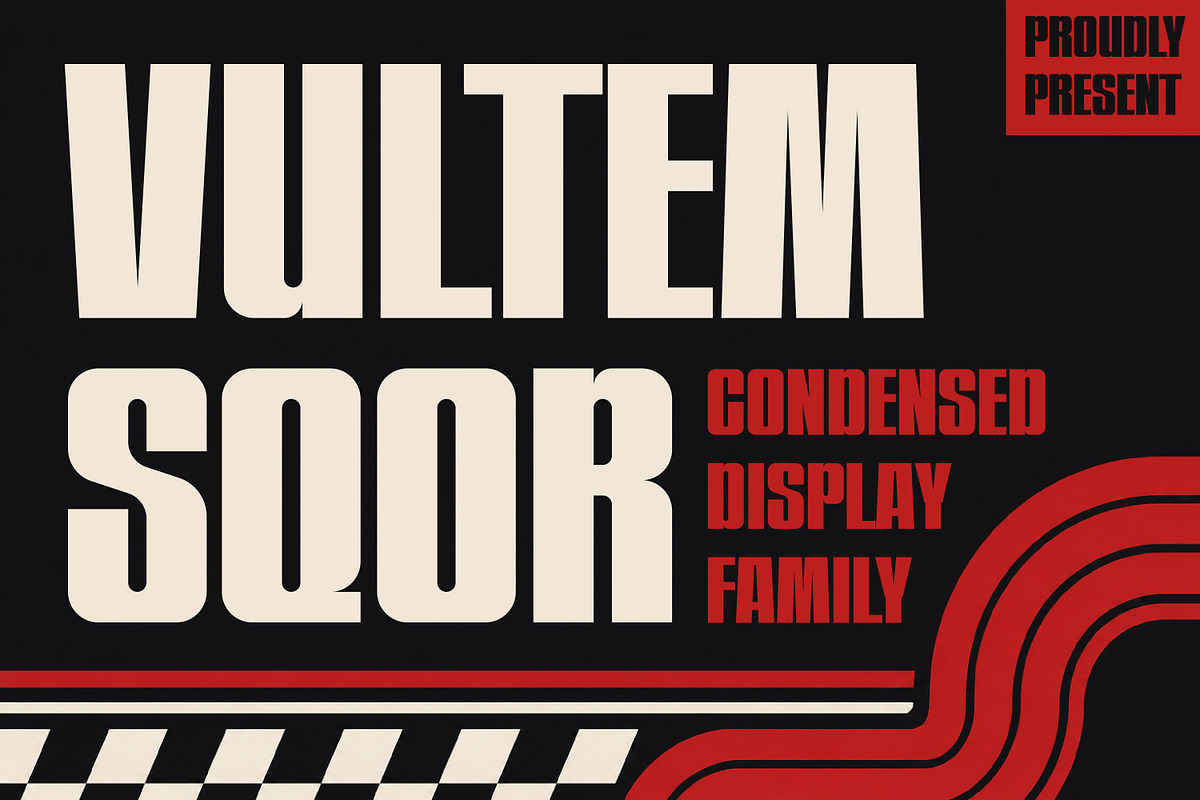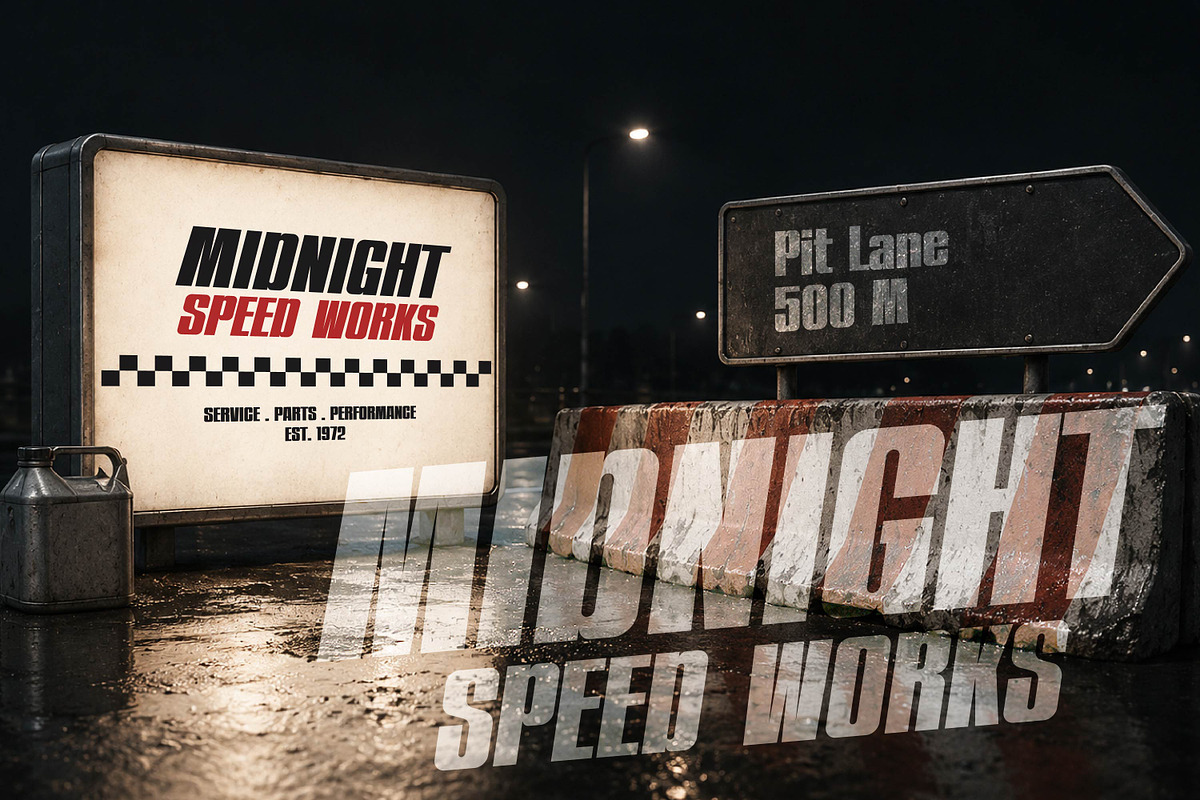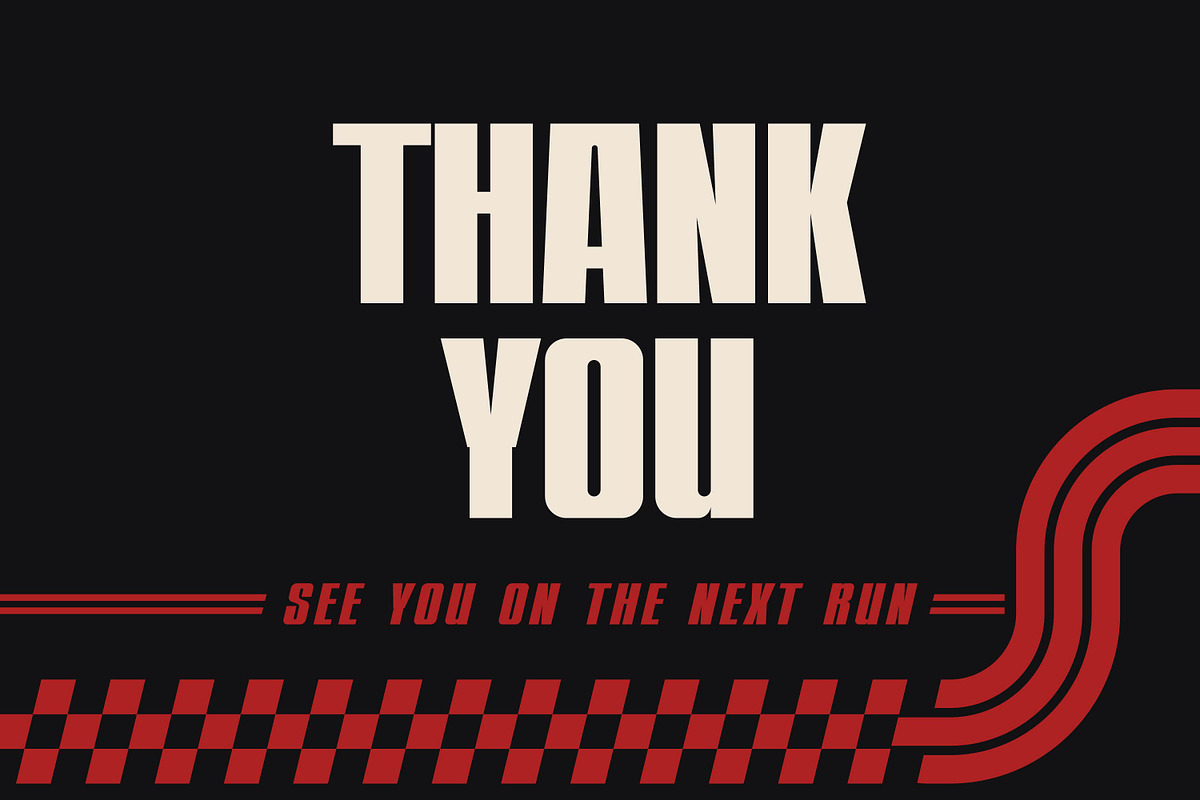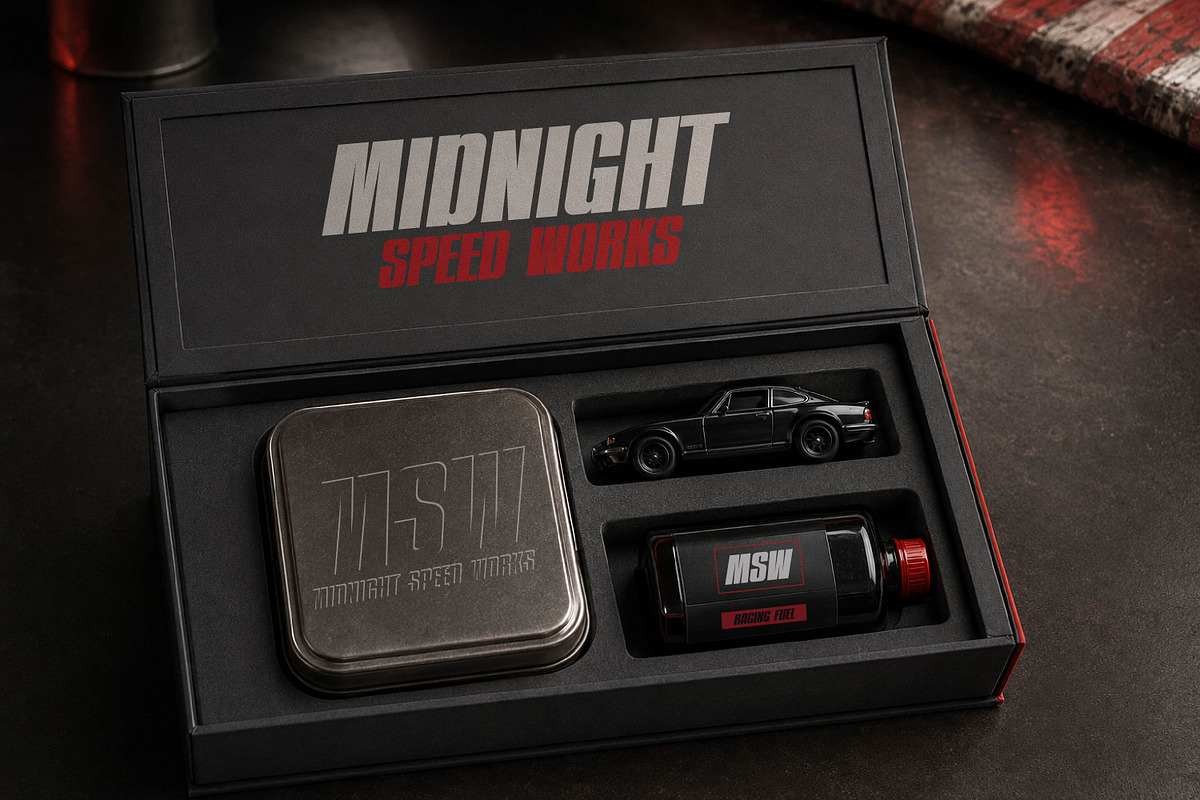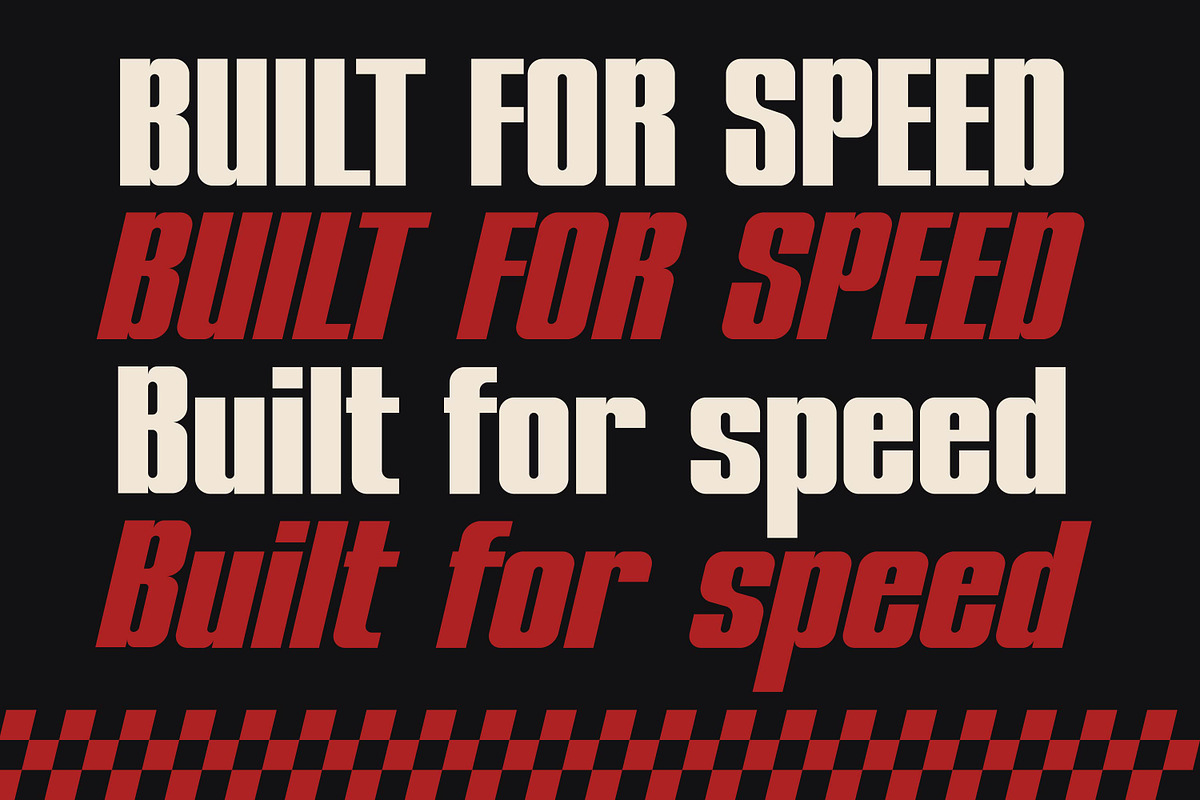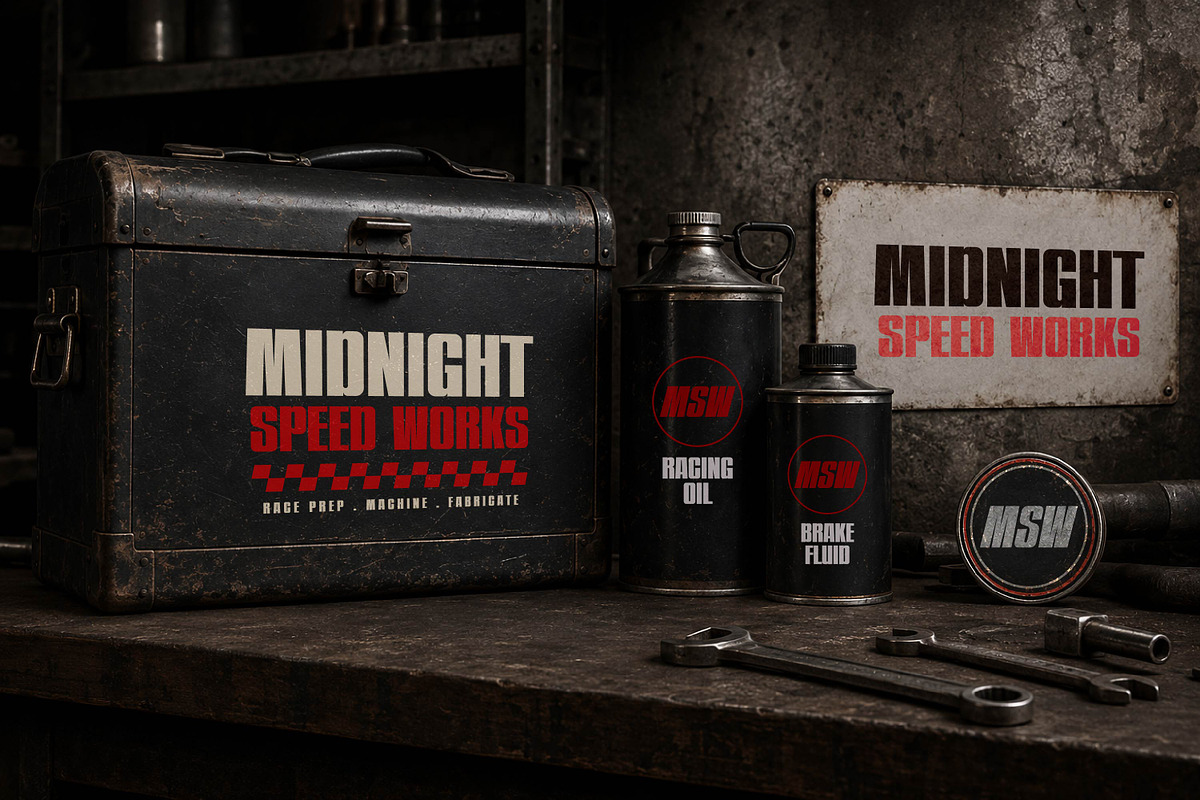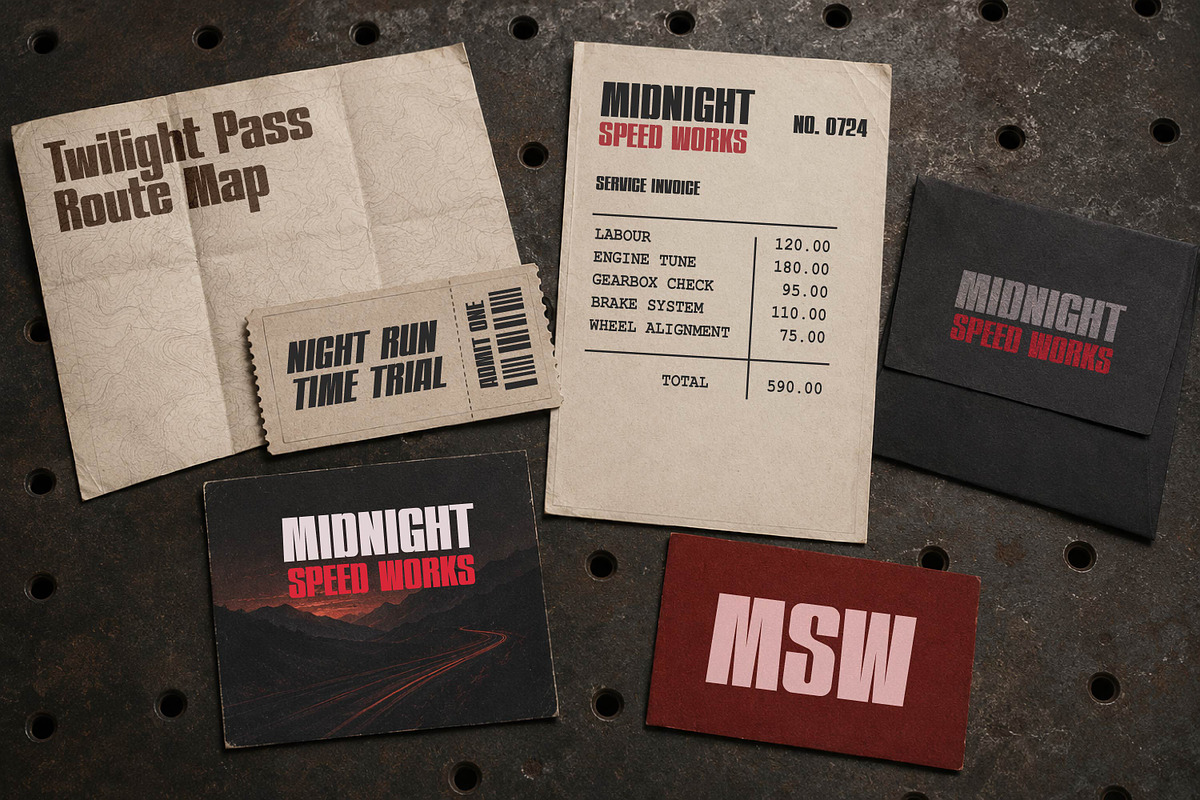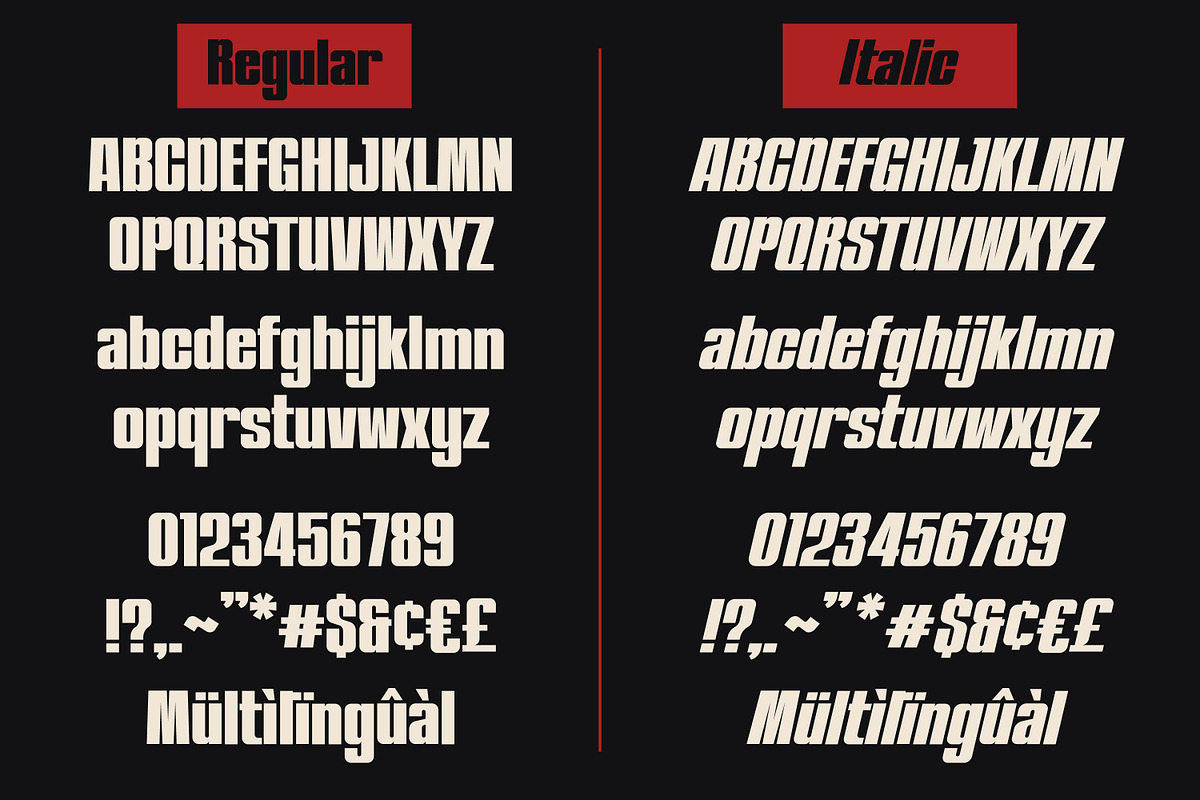
Vultem Sqor - Bold Condensed Display
Vultem Sqor - Bold Condensed Display Font
Vultem Sqor is a bold condensed display font family built with tall proportions, strong geometry, and a powerful editorial presence. Perfect for posters, headlines, sports graphics, branding, magazines, packaging, apparel, and impactful modern typography.